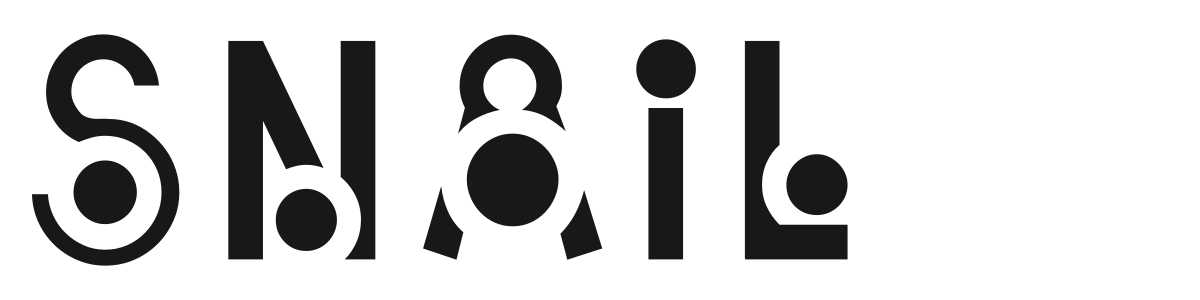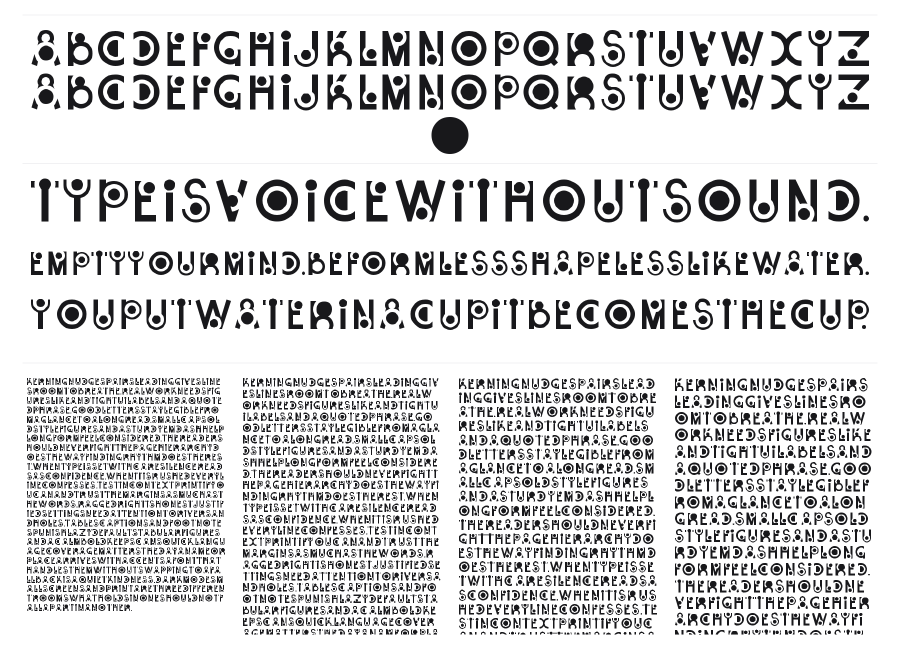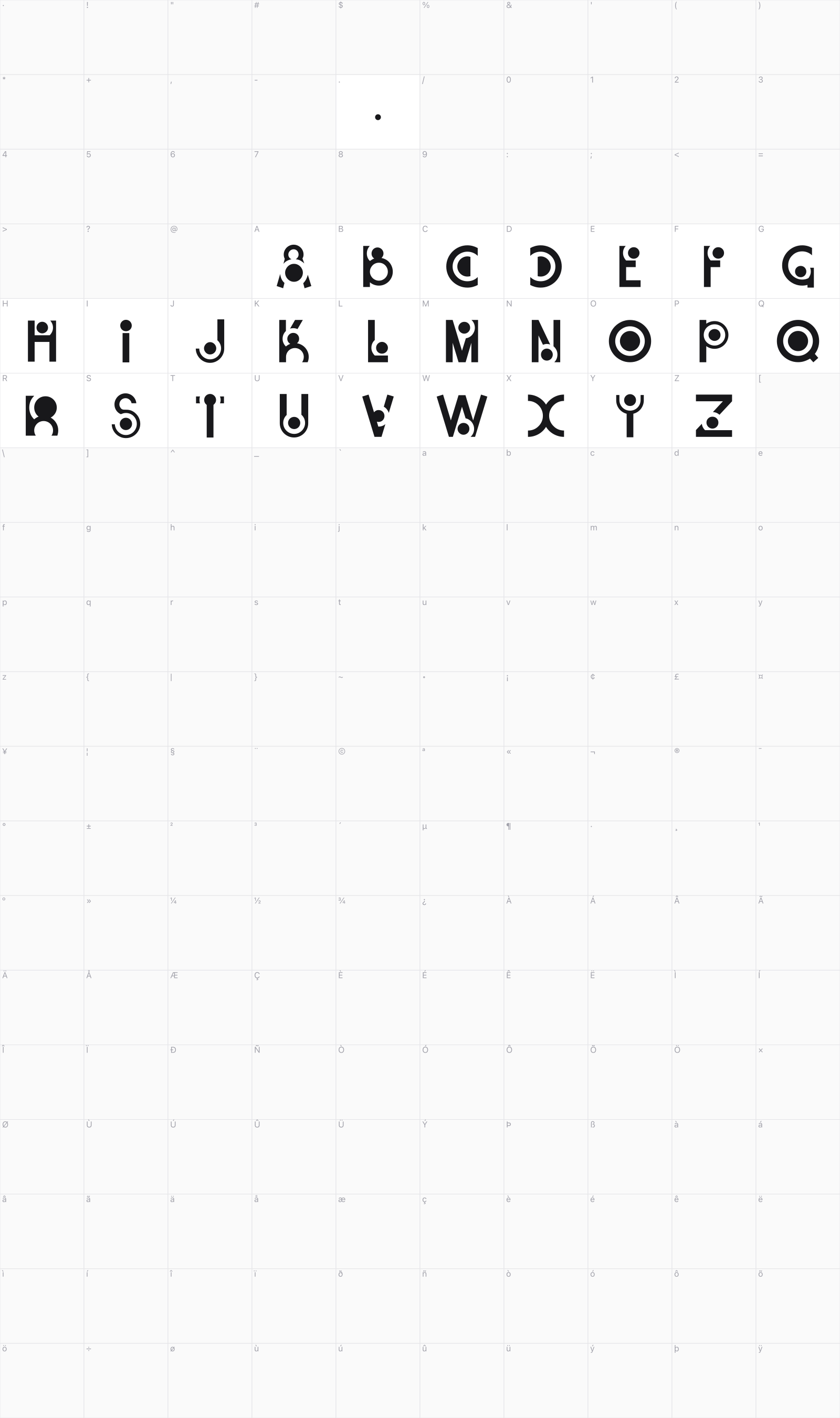
Snail
Snail is a bold geometric display font built entirely from circular voids and heavy rectangular blocks. Each character is constructed like a puzzle of punched-out forms, creating a striking optical interplay between solid mass and negative space. The result is something between a toy alphabet and a modernist experiment.